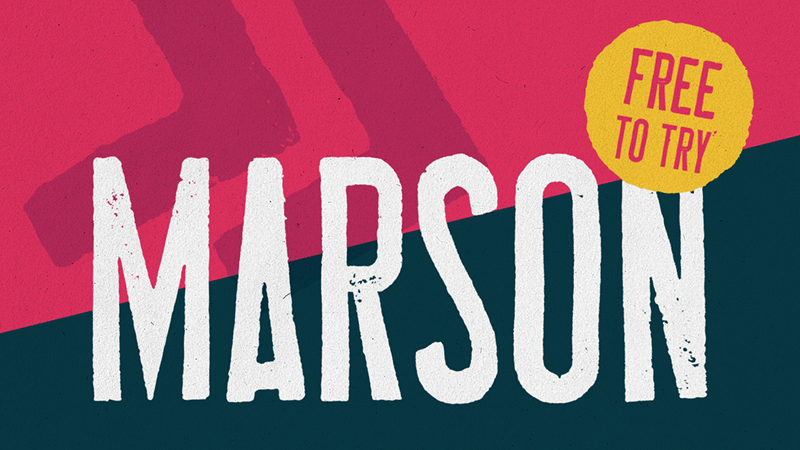
Marson is a strong condensed displayfont in 3 styles. It's made from old rubber-stamps. Works great in branding, logotype, editorial, films, packaging � |